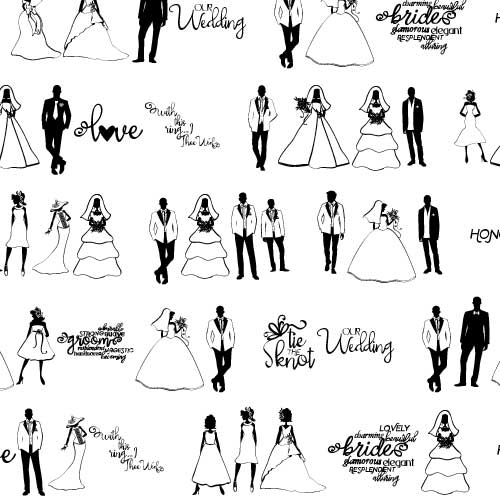
DB Fall Love Affair - DB
This beautiful doodlebat font features 26 brides, grooms and their wedding party in fall colors and florals, perfect for any marriage celebration, formal event, parties, crafts, cardmaking, scrap book pages, planner stickers, decor and more!